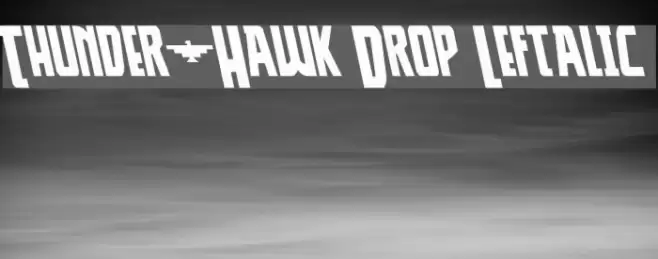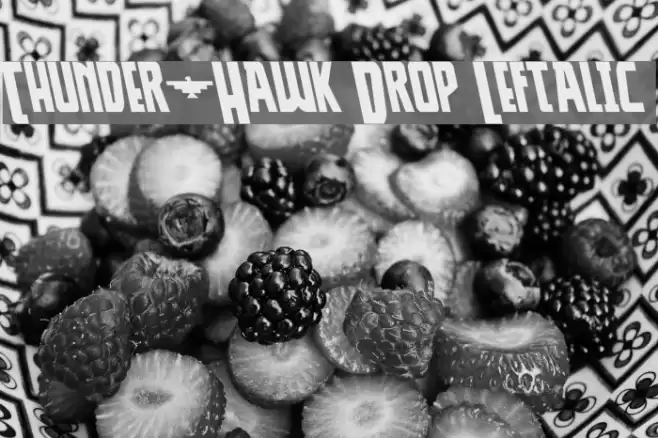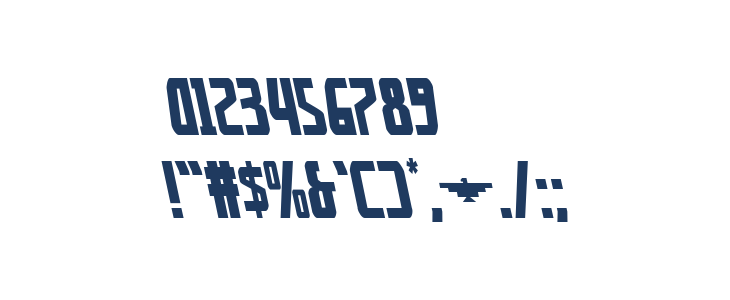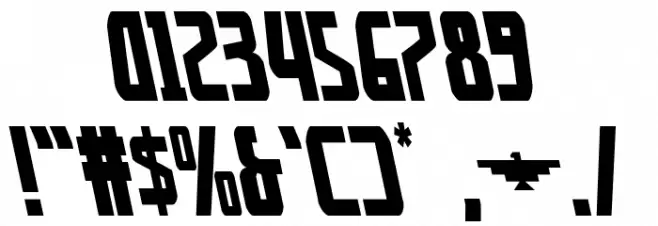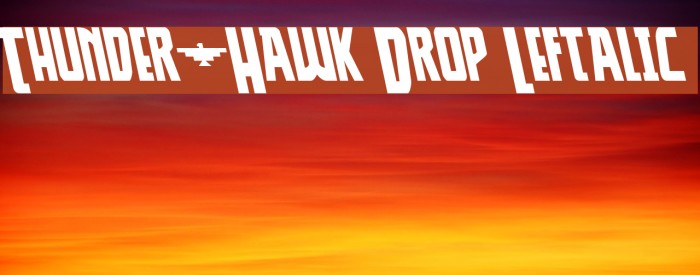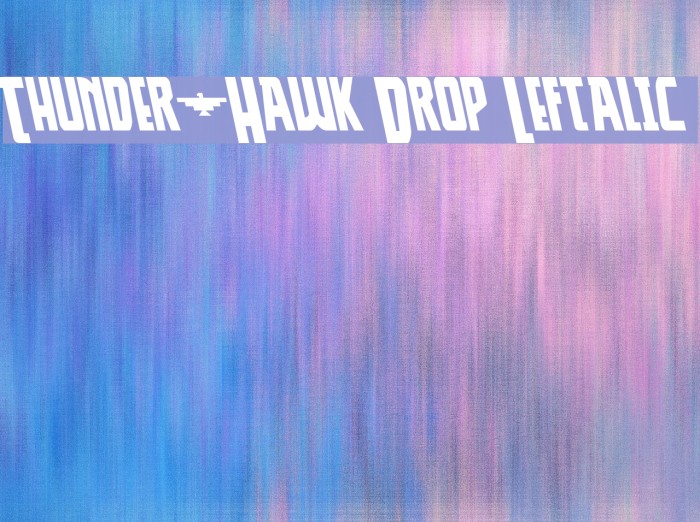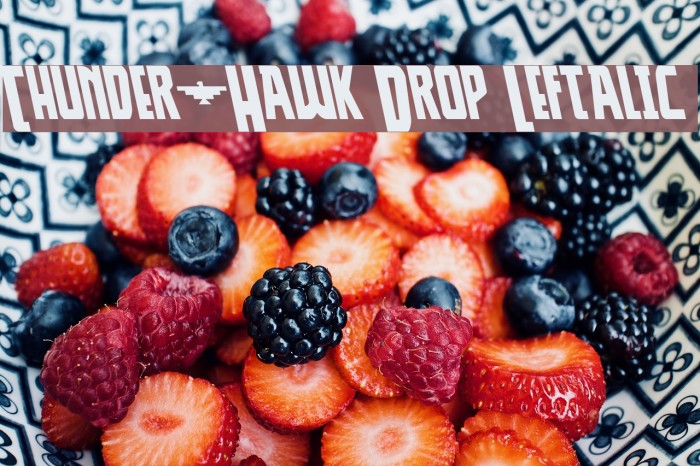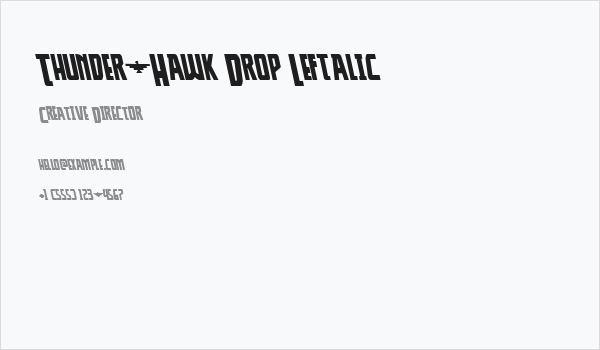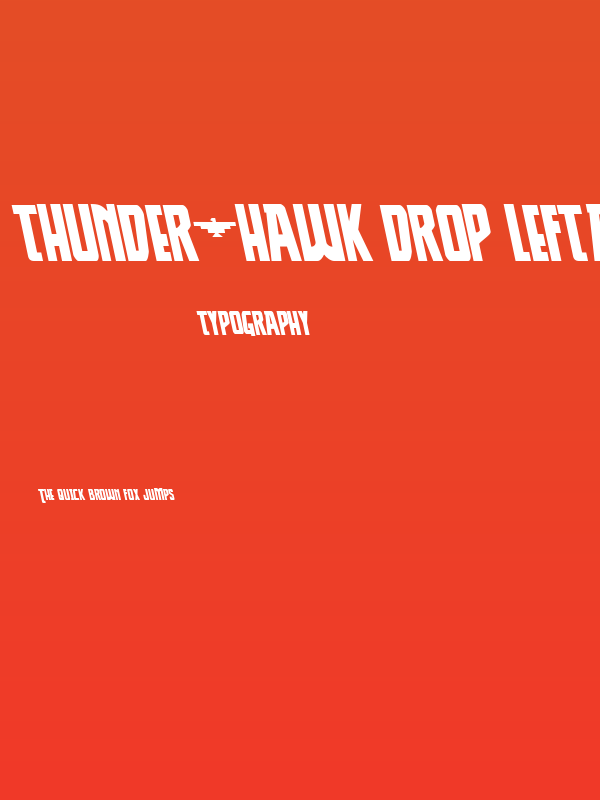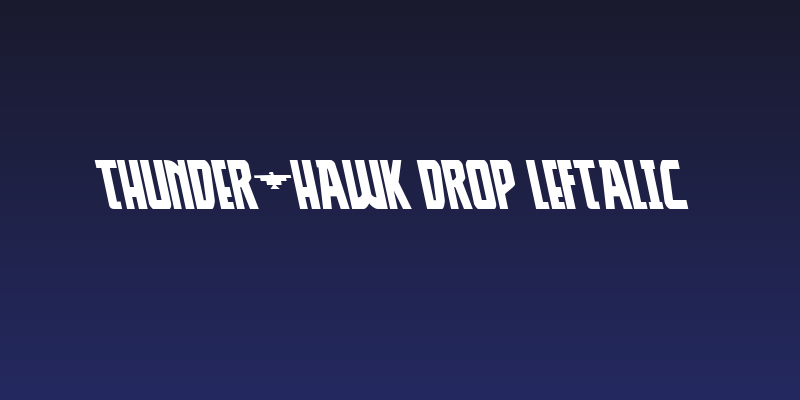
Thunder-Hawk Drop Leftalic Font
Thunder-Hawk Drop Leftalic Description
This font features a bold and dynamic design with a strong geometric influence. The characters are sharply angled, giving a sense of movement and energy. The uppercase letters are particularly striking, with a consistent slant that adds a sense of urgency and modernity. The lowercase letters maintain the same angular style, ensuring cohesion throughout the typeface. Numbers and special characters are designed with the same boldness, making them stand out effectively. The overall appearance is both futuristic and assertive, making it suitable for impactful design projects.
A bold, angular font with a dynamic and modern style from Uncategorized fonts.
- Proposed Projects: Ideal for sports branding, action movie posters, video game titles, and dynamic advertising campaigns.
- Character Spacing: Tight